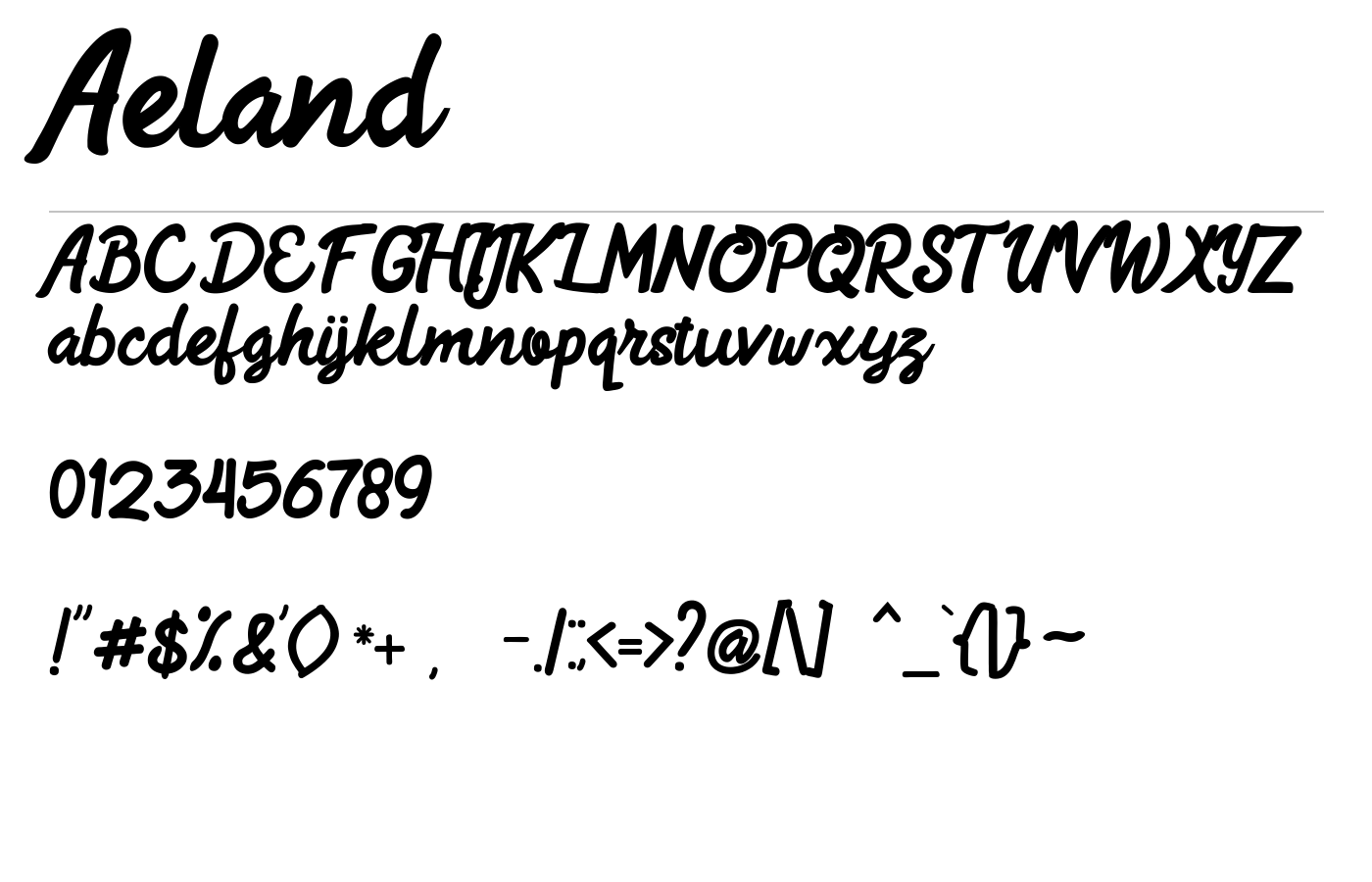
Aeland is a lively and casual script font with a bold weight and smooth, flowing strokes that give it a handwritten, friendly feel. Its clear letterforms and moderate contrast make it highly legible while maintaining a personal, approachable style perfect for creative branding, invitations, and informal headlines. This font works well where a warm, inviting touch is needed, blending personality with readability.
Aeland Font